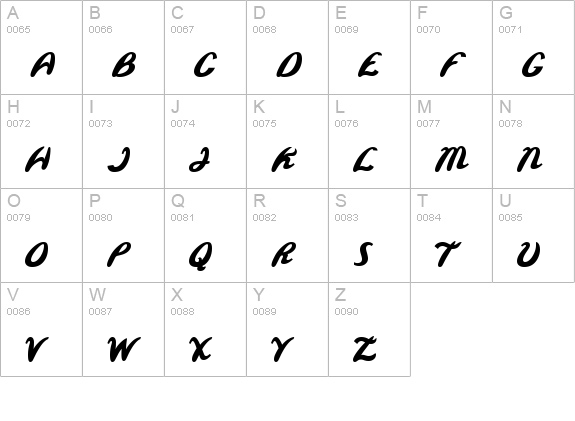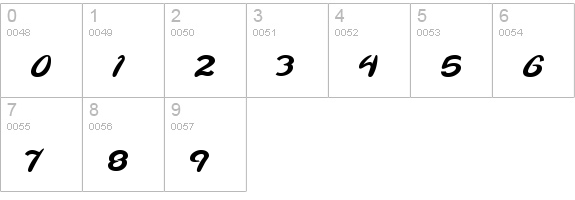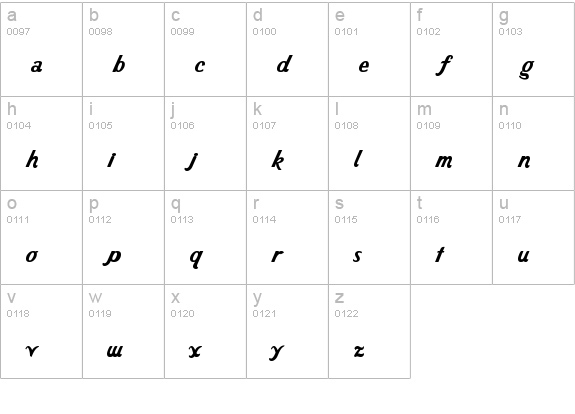
Introducing the exhilarating Wild Ride font – a typeface that embodies the spirit of adventure and the thrill of the open road. With its bold and dynamic letterforms, this font is perfect for projects that require a touch of excitement and a hint of rebellion. Designed to capture the essence of an untamed journey, Wild Ride boasts a unique blend of edginess and sophistication. Its distinctive shapes and intricate details make each character a work of art, adding a dash of personality to any design. But what makes Wild Ride truly special is that it is not only captivating, but also free. Yes, you read that right – this remarkable font is freely available to download at FontsMarket.com. Now, you can unleash your creativity without worrying about breaking the bank. Whether you're designing a poster for a music festival, a logo for a motorcycle club, or a brochure for an adrenaline-pumping adventure, Wild Ride is the perfect companion. So buckle up and set your imagination free with the Wild Ride font. Let it take you on a journey full of boldness and passion. Download it today at FontsMarket.com, and let your designs soar to new heights of excitement.